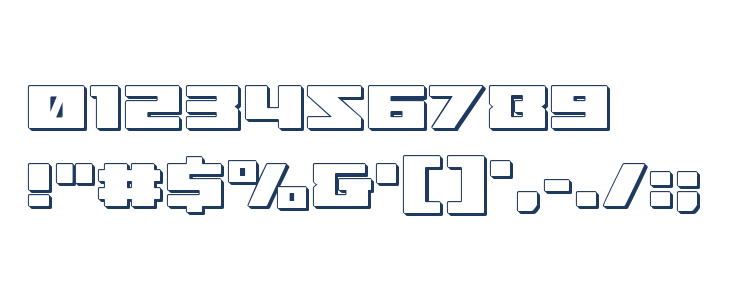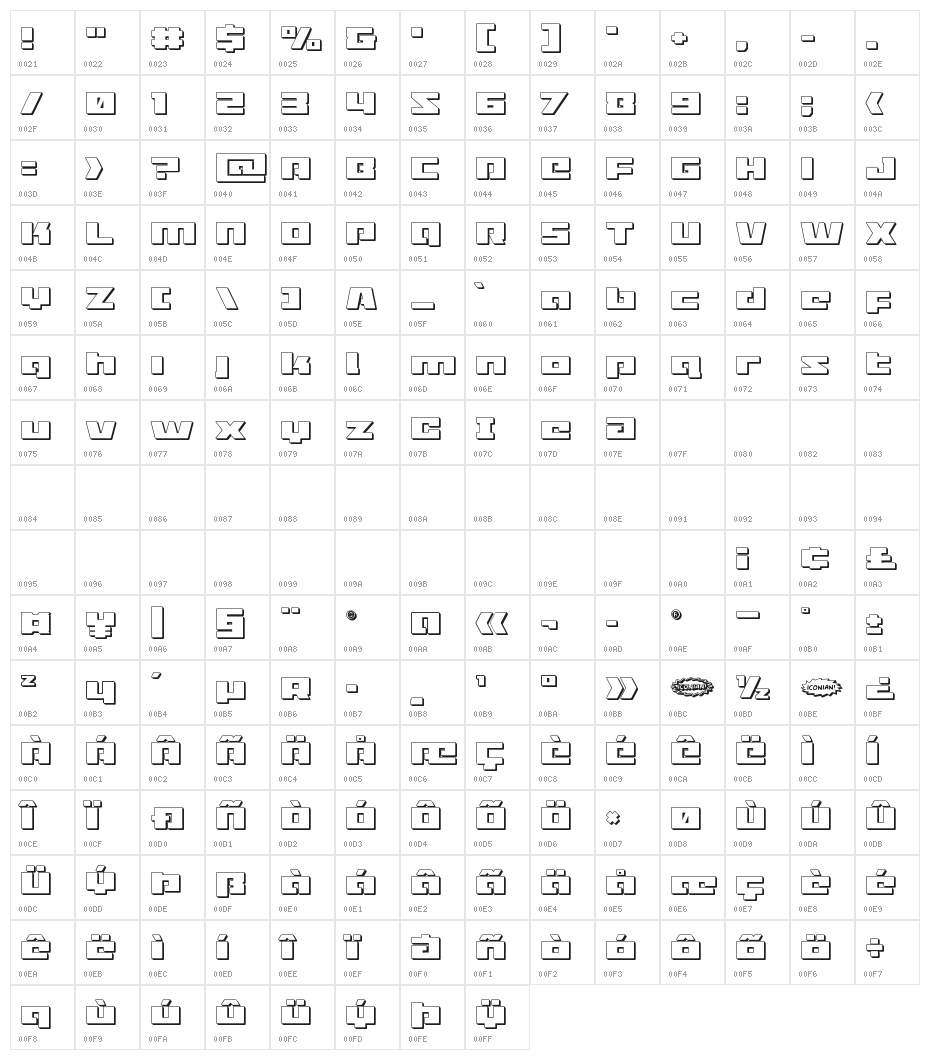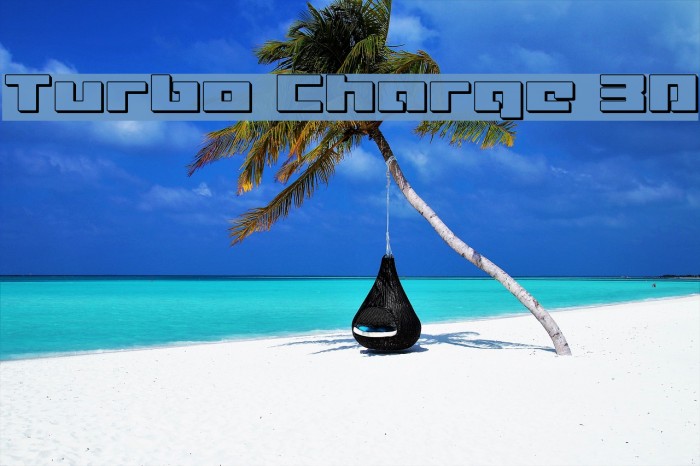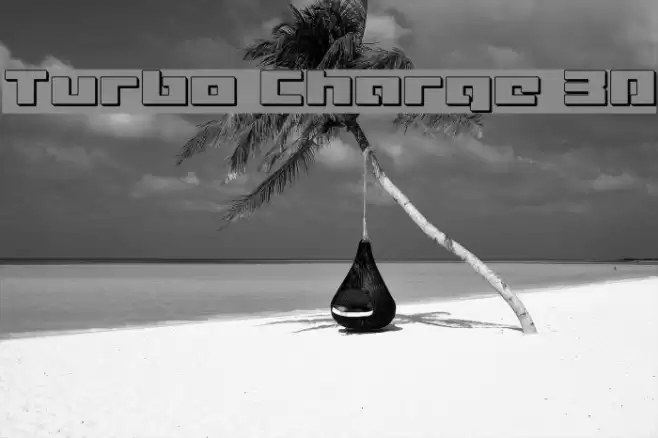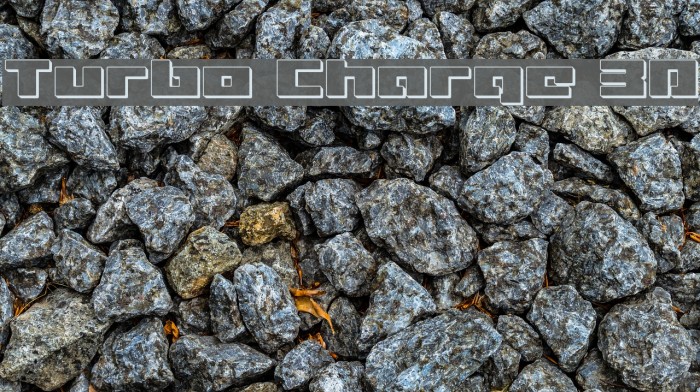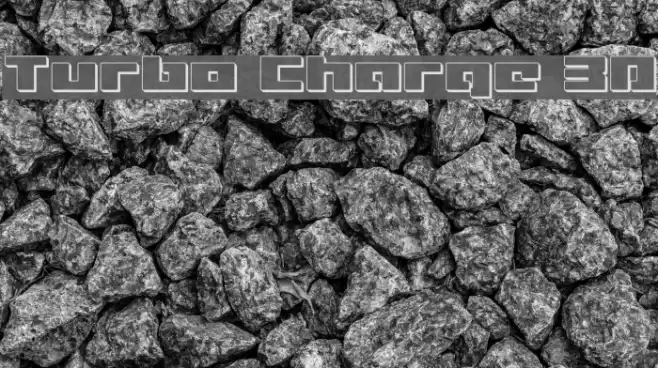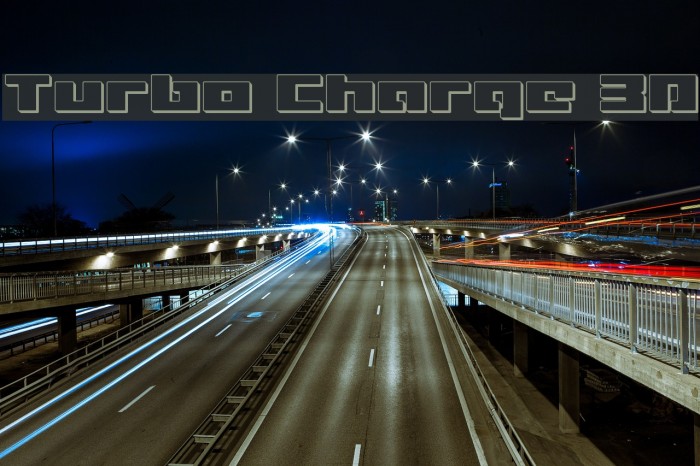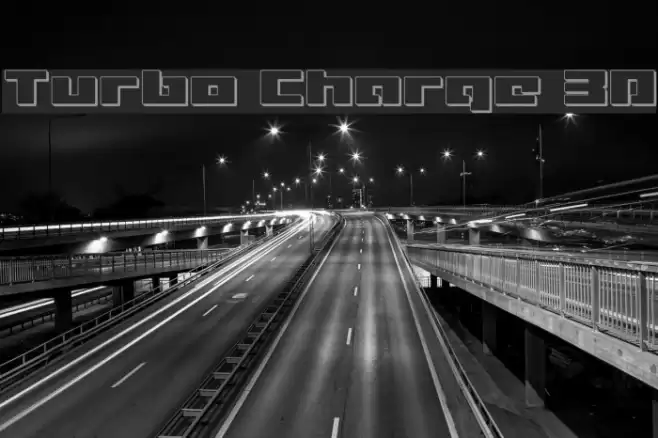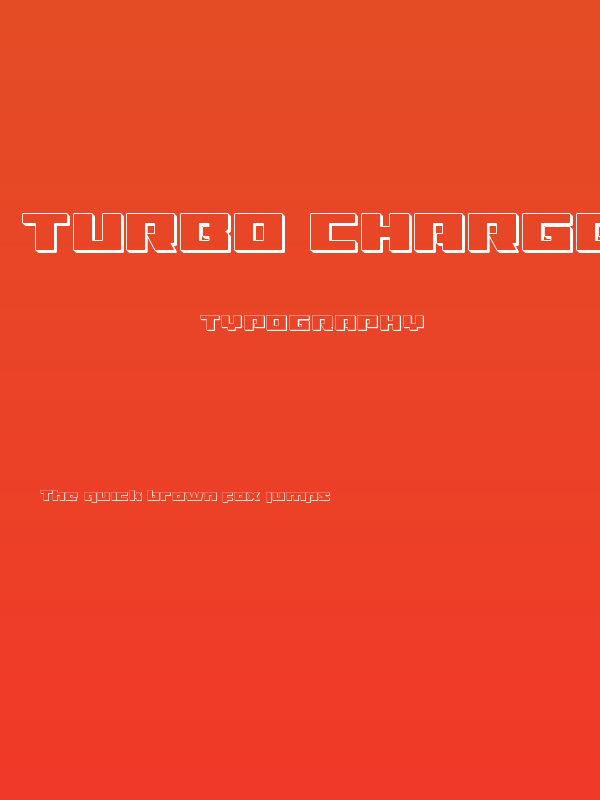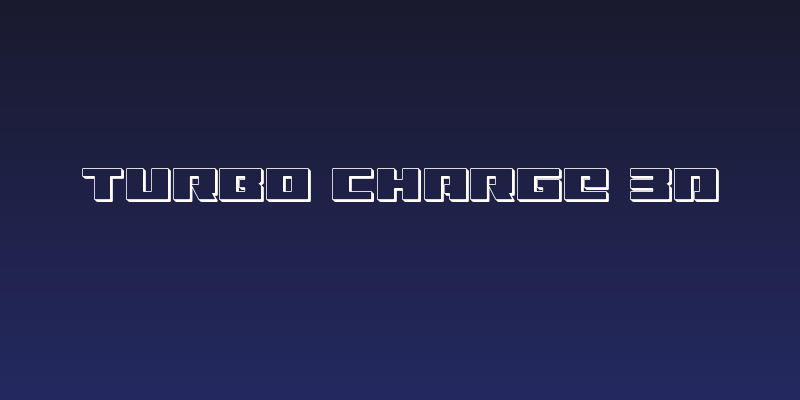
Turbo Charge 3D Font
Turbo Charge 3D Description
This font features a bold, three-dimensional appearance with a distinct blocky style. The characters are outlined, giving them a futuristic and mechanical look. The uppercase and lowercase letters maintain a consistent geometric form, while the numbers and special characters complement the overall design. The font's structure is clean and precise, making it suitable for attention-grabbing headlines and designs that require a modern, industrial touch. Its unique 3D effect adds depth and visual interest, making it stand out in various applications.
| Proposed Projects | Ideal for video game titles, tech-themed posters, futuristic branding, and industrial design projects. |